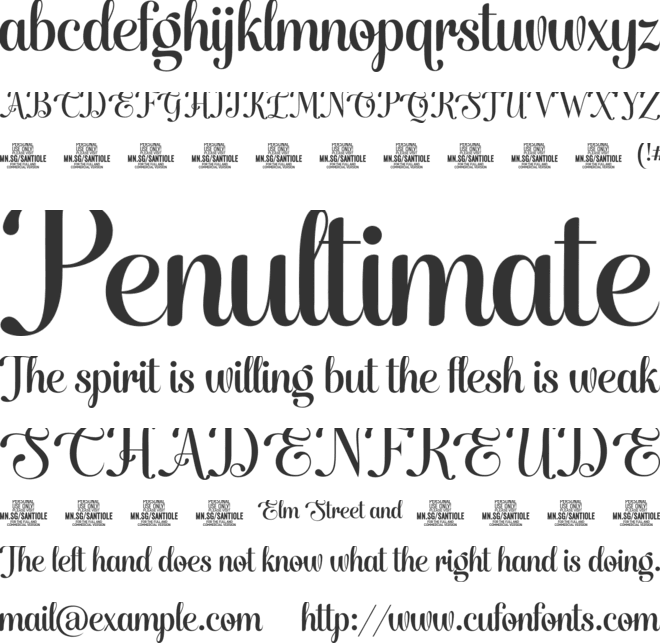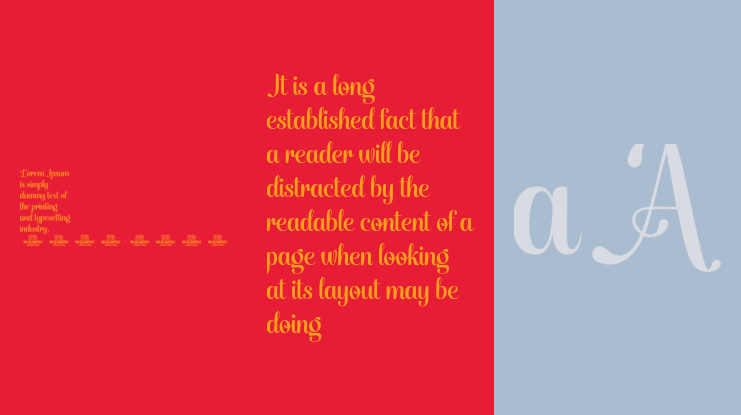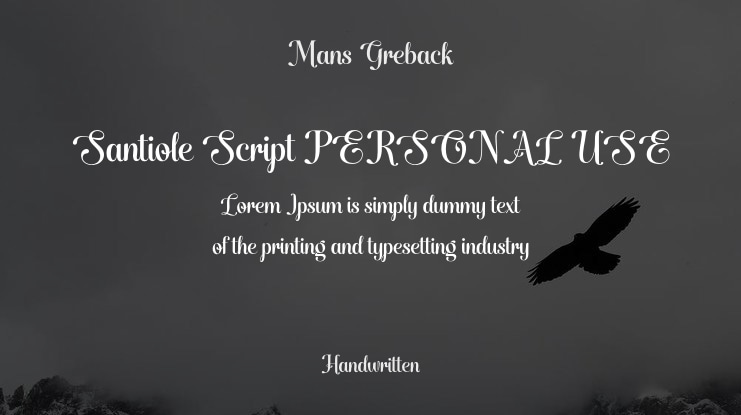
Santiole Script PERSONAL USE Font Family
NOTE: This font is for PERSONAL USE ONLY!To purchase a commercial license, visit:https://www.mansgreback.com/product/santiole-scriptSantiole Script is a playful yet regal lettering style that flourishes with a sense of celebration. Each letter carries a whimsical twist at its terminals, reminiscent of theatrical scrolls or festive signage. With a high contrast between thick and thin strokes, it radiates a strong personality while retaining a smooth flow across words.Use underscore _ to make a swash under any word. Example: Rose_budUse multiple underscores to make different swashes. Example: Super______manFor questions, please visit https://mansgreback.com/faq